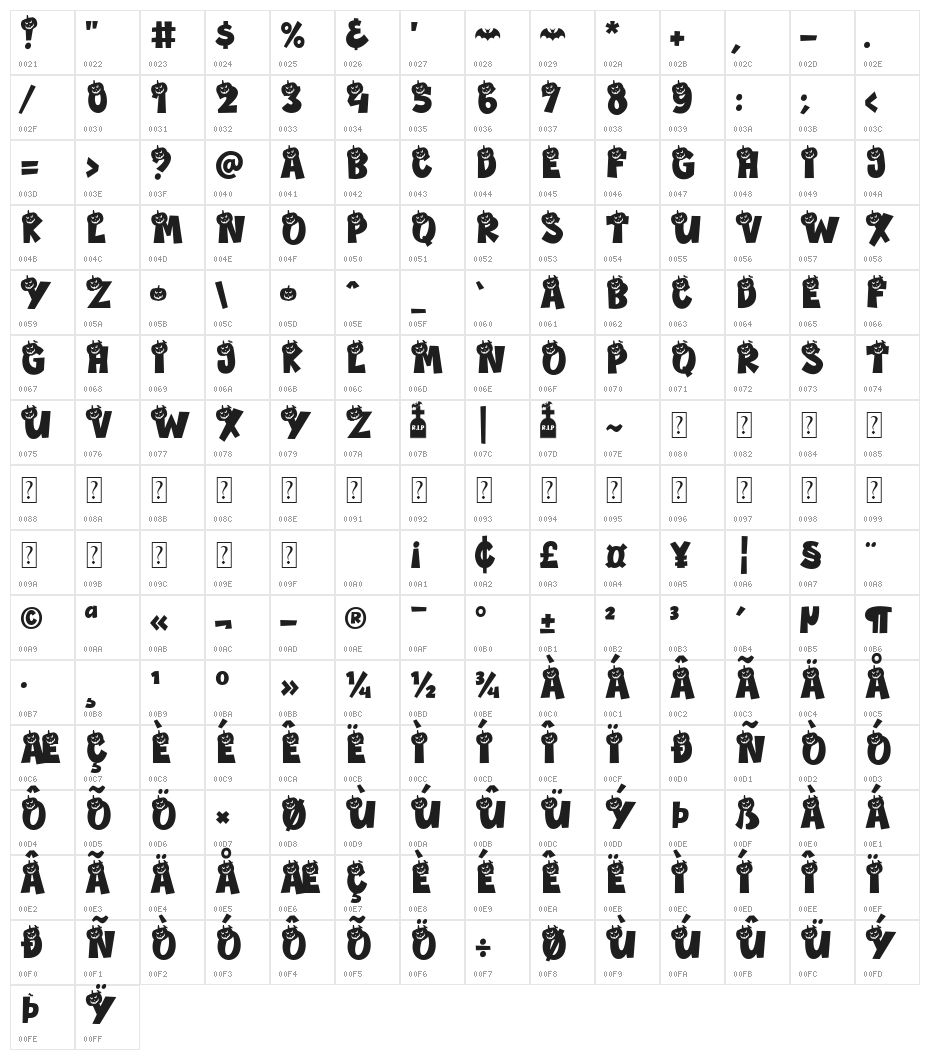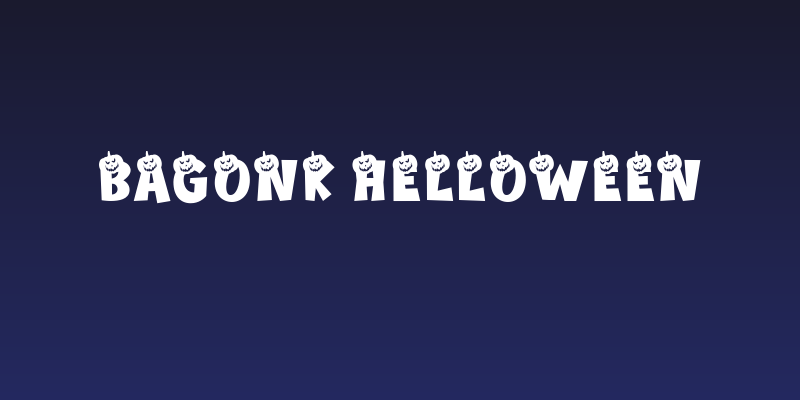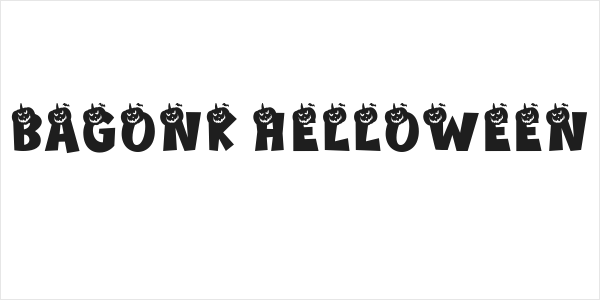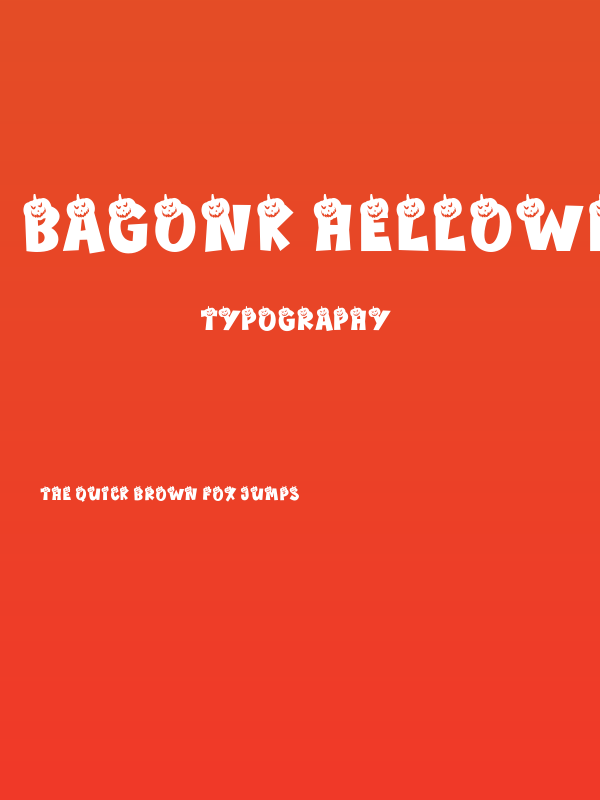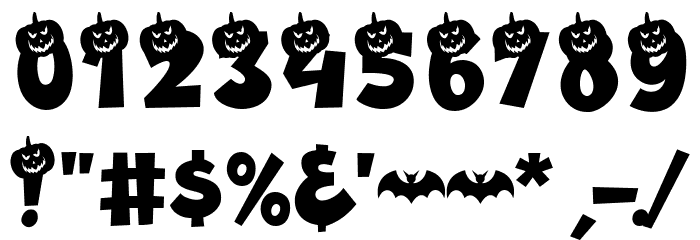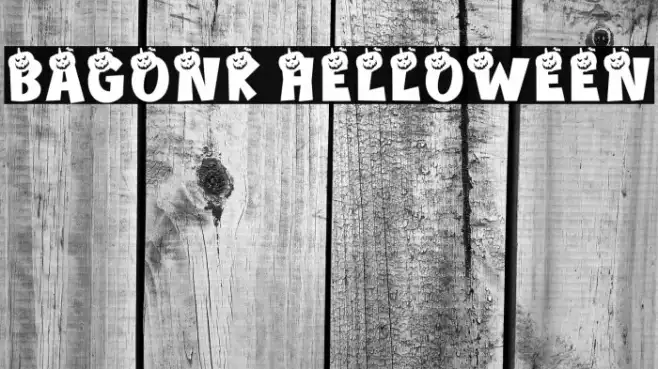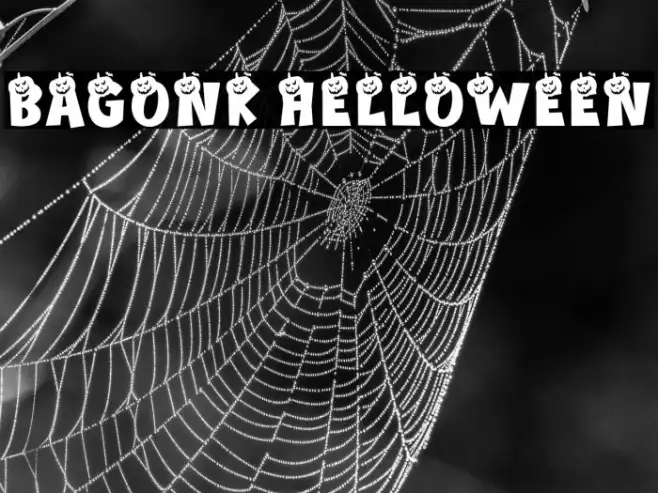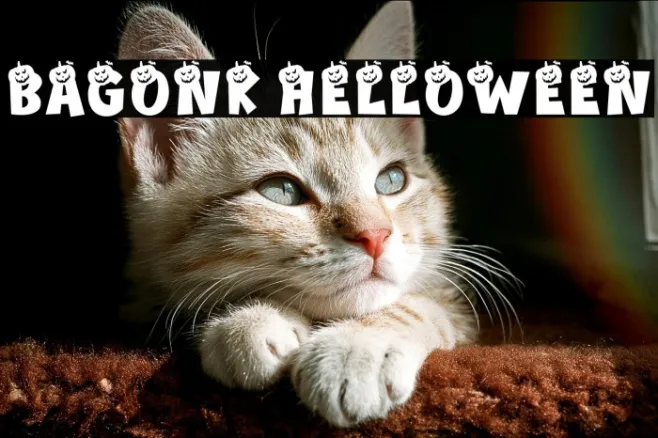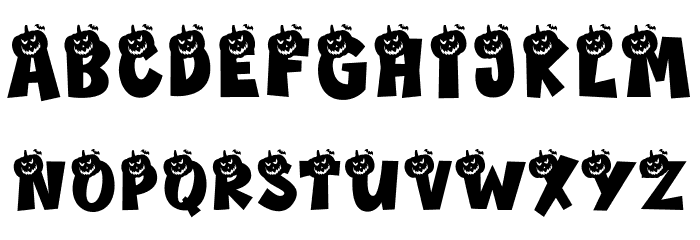
Bagonk Helloween Font
Bagonk Helloween Description
This playful and spooky font features bold, blocky letters adorned with Halloween-themed elements, such as jack-o'-lanterns integrated into the design. The characters are whimsical and eye-catching, making them perfect for festive occasions. The uppercase and lowercase letters maintain a consistent style, with exaggerated curves and sharp angles that add to the eerie yet fun aesthetic. Numbers and special characters follow the same theme, ensuring a cohesive look across all text. The font's unique style is ideal for capturing attention and conveying a sense of Halloween spirit.
| Use Case | Headlines, Posters, Invitations |
| Proposed Projects | Ideal for Halloween party invitations, themed event posters, children's books, and festive merchandise. |